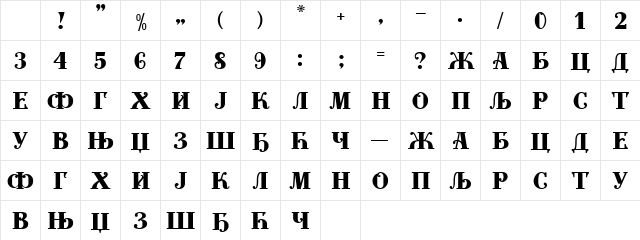
C_Litho Regular Free Font
C_Litho Regular
Design Context for C_Litho
C_Litho is a composed and adaptable typeface that performs quietly and consistently across a wide range of design contexts.